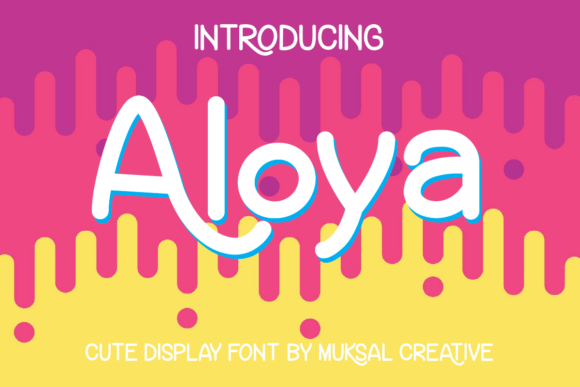
Discover Aloya Font, a Charming Display Font That Will Ignite Your Designs
Step into the realm of captivating typography with Aloya Font, a display font brimming with charm and character. A creation of Muksal Creative, Aloya is a font that breathes life into your designs, adding a touch of whimsy and fun to every project.
Visualize your creative ideas springing to life as you embrace Aloya's playful nature. Whether you're designing captivating app interfaces, delightful children's games, or seeking a unique touch for your latest project, Aloya will be your steadfast companion.
With its captivating curves and endearing personality, Aloya is the font that transforms the ordinary into the extraordinary. It's a font that speaks to the heart, inviting viewers to engage with your creations on a deeper level.
Unlock the boundless possibilities of Aloya Font today and witness the transformation of your designs. Let your imagination soar as Aloya guides you on a journey of creativity, leaving an indelible mark on every project you undertake.
Dive into the World of Aloya Font and Unleash Your Creative Potential
Aloya Font, a display font extraordinaire, awaits your discovery. Its versatility knows no bounds, adapting seamlessly to a myriad of design endeavors. From cheerful children's games to captivating app interfaces, Aloya effortlessly elevates your creations.
Experience the joy of designing with a font that ignites your imagination and fuels your creativity. Aloya's charming personality shines through in every character, adding a touch of magic to your projects.
Don't settle for ordinary fonts that blend into the background. Embrace the captivating power of Aloya Font and watch as your designs blossom into vibrant expressions of your artistry.
Aloya Font: Your Gateway to Creative Freedom
Aloya Font is more than just a font; it's an invitation to unleash your creative potential. With its friendly and casual demeanor, Aloya transforms mundane designs into captivating masterpieces.
Picture your creations adorned with Aloya's enchanting characters, captivating your audience with its playful charm. Allow Aloya to guide you on a creative journey, where every project becomes an opportunity to showcase your unique artistic vision.
Embark on this creative adventure with Aloya Font as your trusted companion. Let its whimsical nature inspire you to create designs that resonate with your audience, leaving a lasting impression that will be cherished for years to come.